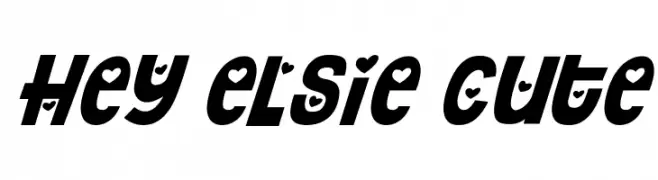
HeyValentine Font
A playful, heart-accented font with bold, slanted characters.
HeyLovely-Regular Font
A lively, flowing script font with an elegant, handwritten style.
Leibniz-Fraktur Font